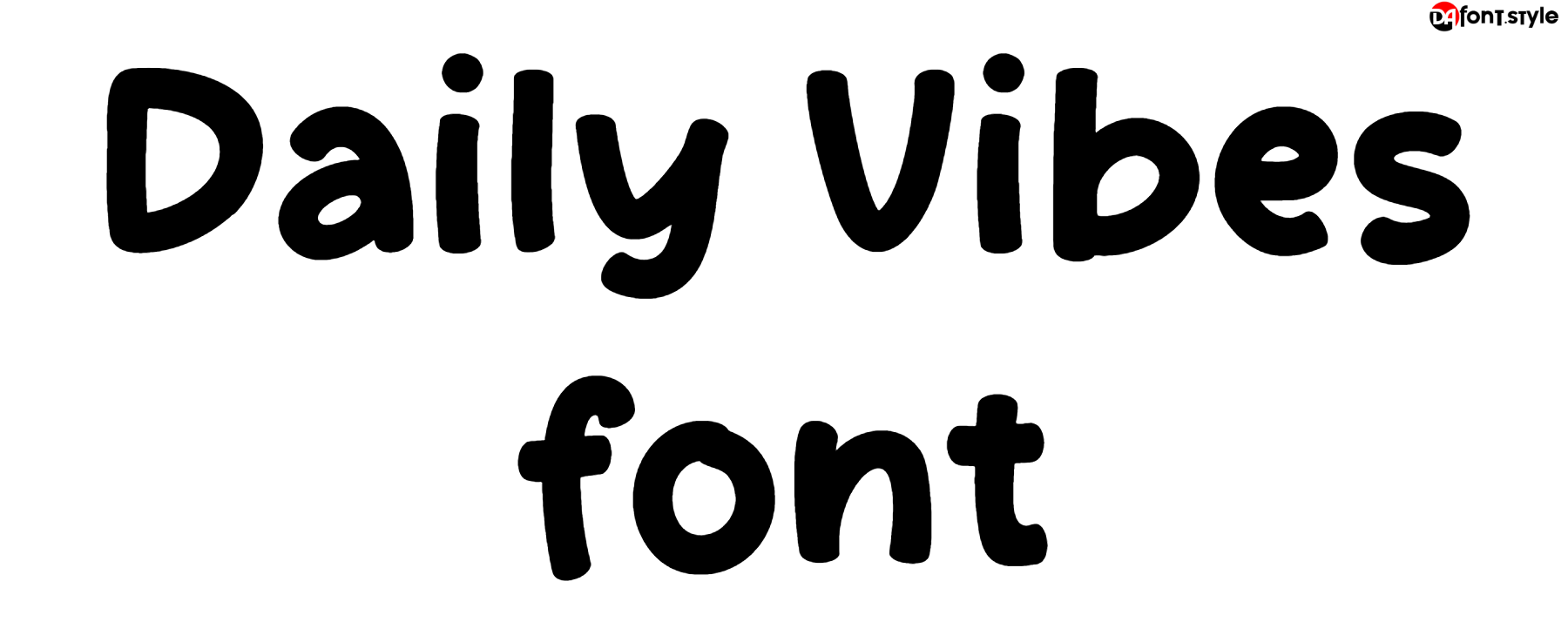
Daily Vibes font
Daily Vibes
Daily Vibes is a cartoon font created by (Origin Type). Its bouncy, rounded letters feel playful, like lettering from a cartoon or a comic book. It's a free download, and you can try it with your own text in the preview above first.
What You Can Type With Daily Vibes
With complete upper and lowercase letters and all ten digits, Daily Vibes is ready for real wording, not just a single headline. Common punctuation such as &, !, ? and @ is included as well. It also has the accented letters you need for Spanish, French, German, Portuguese and Italian.
Where Daily Vibes Works Best
Think of Daily Vibes for kids' books, birthday invites and fun YouTube thumbnails. Cartoon fonts are great for short, fun lines. If you place it over a busy photo, add a thick outline or a drop shadow so it stays readable.
Does Daily Vibes support accented letters?
Yes. Daily Vibes includes the accented letters needed for Spanish, French, German, Portuguese and Italian, so it works for more than just English.